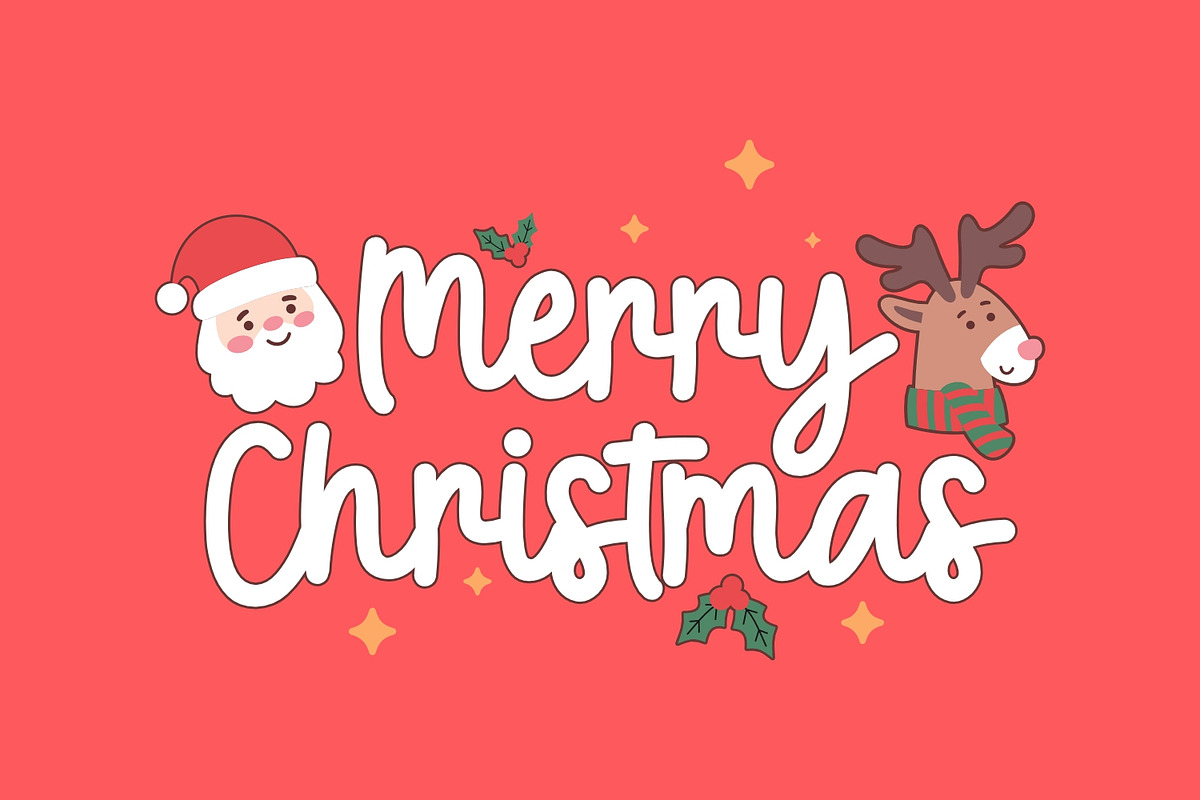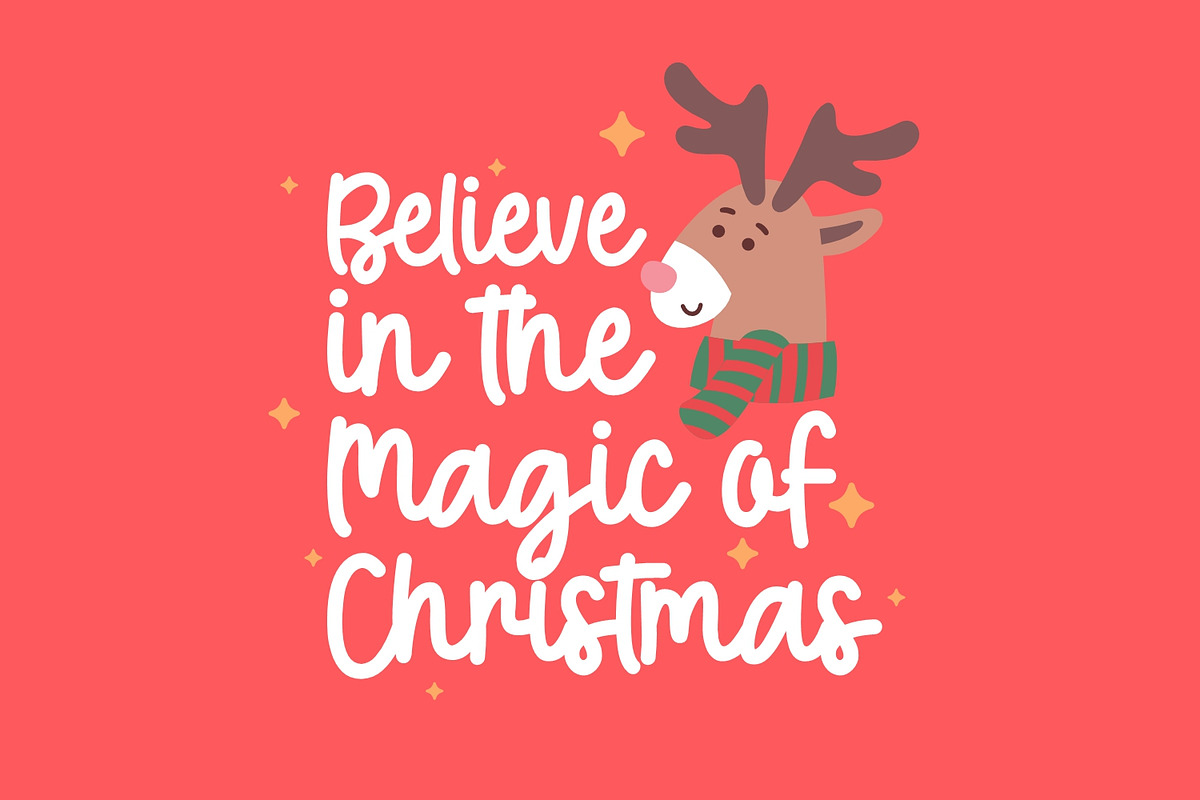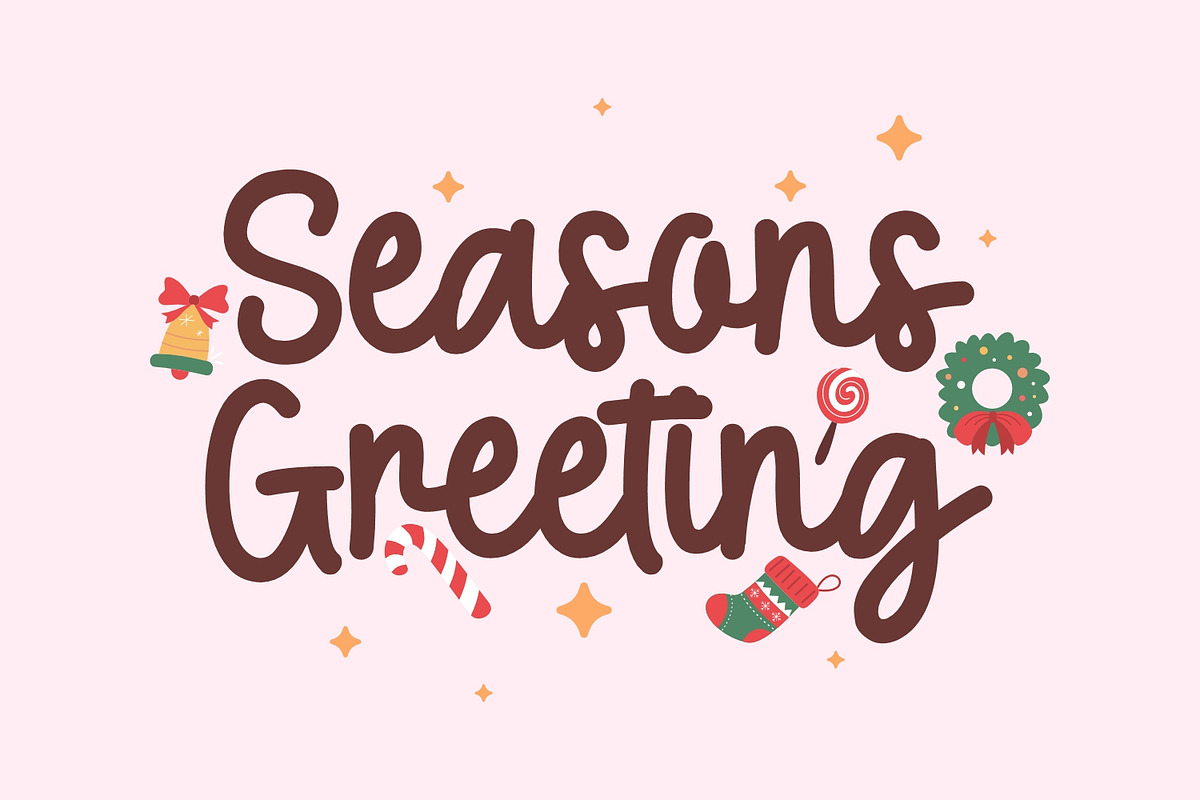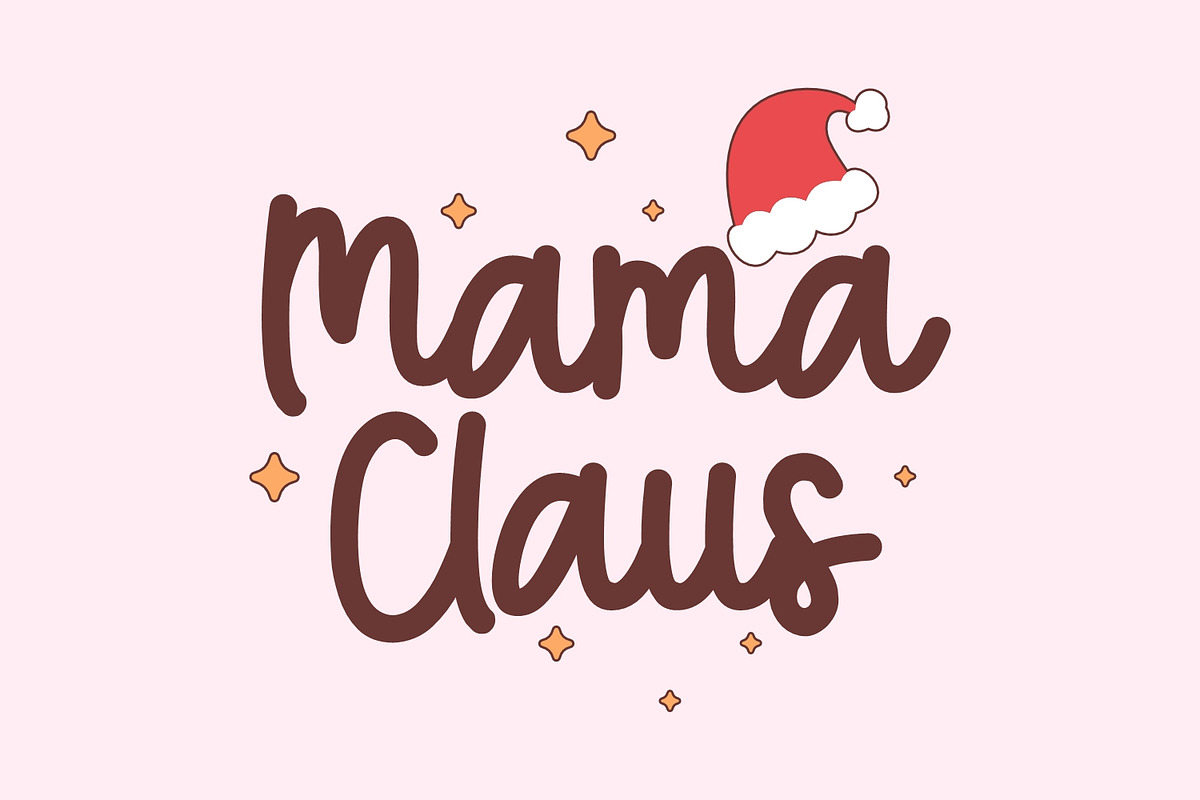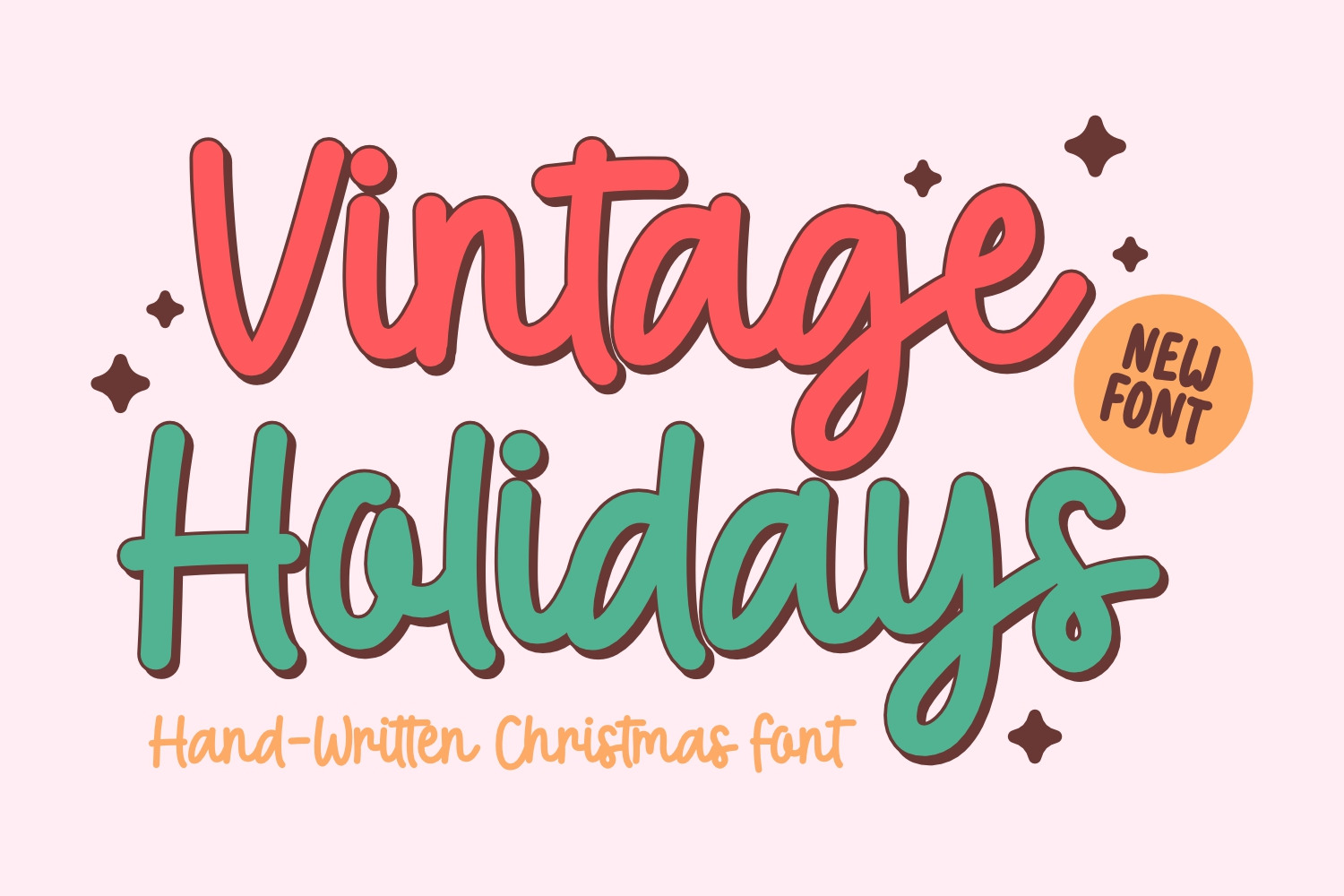
Vintage Holidays - Christmas Font
Vintage Holidays is a delightful handwritten font that brings a touch of nostalgia to your projects. With its charming, handcrafted style, this font is perfect for adding a warm and personal feel to your holiday-themed designs. Ideal for greeting cards, invitations, or any project that could use a dash of vintage flair, Vintage Holidays is a simple yet expressive font that captures the spirit of the season in a beautifully hand-drawn manner.